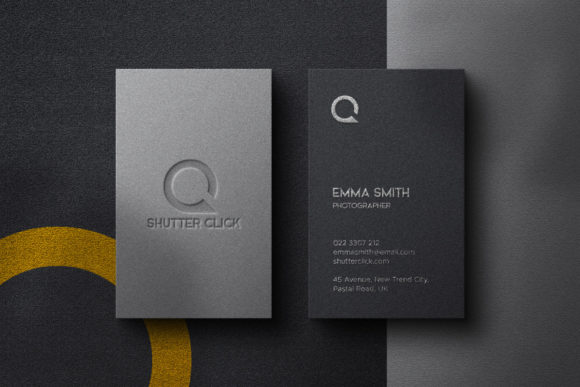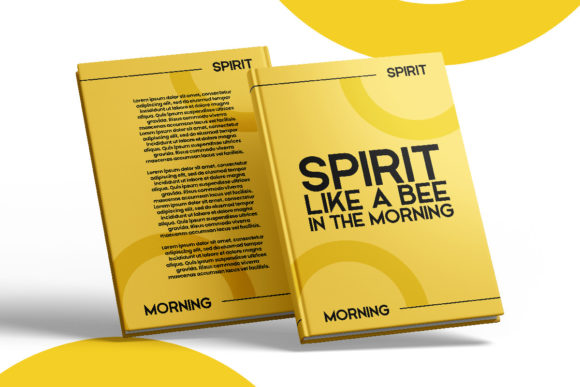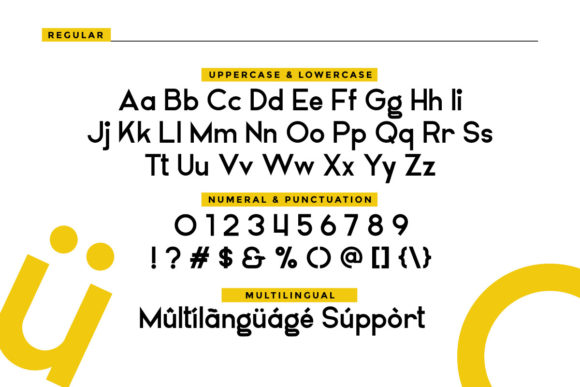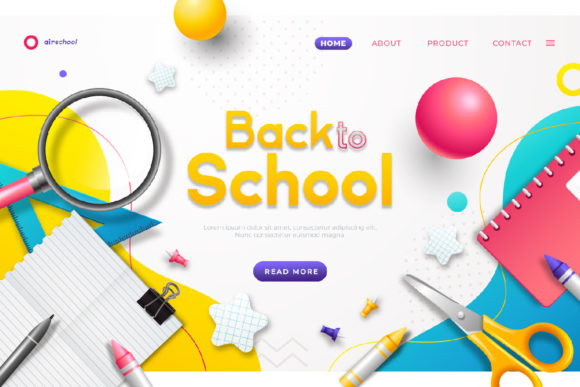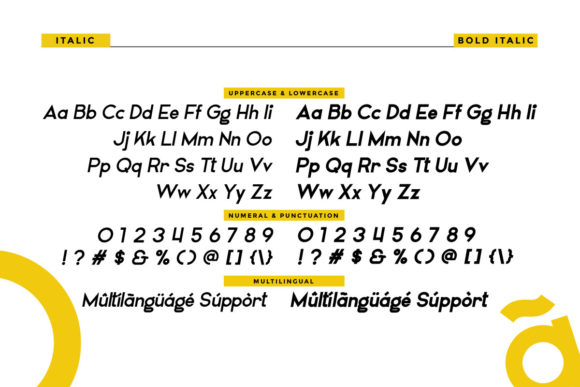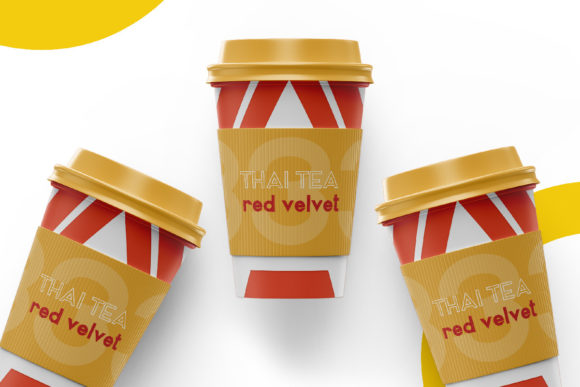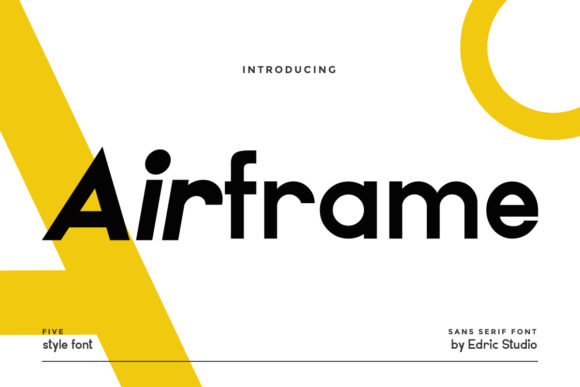
Introducing Airframe Font: The Ultimate Sans Serif for Creative Projects
Are you tired of using the same old fonts for your design projects? Do you want to add a touch of modernity and sophistication to your creations? Look no further than Airframe Font, a minimal and neat sans serif font that’s perfect for a wide range of applications. In this article, we’ll explore the features and benefits of Airframe Font, and show you how it can elevate your designs to the next level.
What is Airframe Font?
Airframe Font is a sleek and contemporary sans serif font that’s designed to be versatile and easy to use. Its clean lines, simple shapes, and minimalist aesthetic make it an ideal choice for designers and crafters who want to add a professional touch to their work. Whether you’re creating a logo, brochure, website, or social media graphic, Airframe Font is the perfect choice.
Key Features of Airframe Font
- Minimalist design: Airframe Font features a simple and uncluttered design that’s perfect for modern designs.
- Sans serif: The font’s sans serif style makes it easy to read and versatile for a wide range of applications.
- Neat and clean lines: Airframe Font’s lines are precise and clean, making it perfect for designs that require a professional look.
- Highly legible: The font is designed to be easy to read, even at small sizes.
- Wide range of uses: Airframe Font can be used for a variety of projects, from logos and branding to websites and social media graphics.
Benefits of Using Airframe Font
So why should you choose Airframe Font for your design projects? Here are just a few benefits of using this versatile font:
- Instant professionalism: Airframe Font gives your designs a professional and polished look that’s sure to impress.
- Easy to pair with other fonts: The font’s simple design makes it easy to pair with other fonts, allowing you to create unique and interesting typography combinations.
- Versatile: Airframe Font can be used for a wide range of projects, from print materials to digital designs.
- Time-saving: With Airframe Font, you can create professional-looking designs quickly and easily, saving you time and effort.
How to Use Airframe Font in Your Designs
Using Airframe Font in your designs is easy. Here are a few tips to get you started:
- Use it as a headline font: Airframe Font is perfect for headlines and titles, where its clean lines and simple shapes can make a big impact.
- Pair it with other fonts: Experiment with pairing Airframe Font with other fonts to create interesting and unique typography combinations.
- Use it for body text: Airframe Font is also suitable for body text, where its high legibility and clean design make it easy to read.
In conclusion, Airframe Font is a versatile and professional sans serif font that’s perfect for a wide range of design projects. Its clean lines, simple shapes, and minimalist aesthetic make it an ideal choice for designers and crafters who want to add a modern touch to their creations. With its high legibility, ease of use, and wide range of applications, Airframe Font is a must-have font for any designer or crafter looking to elevate their designs to the next level.